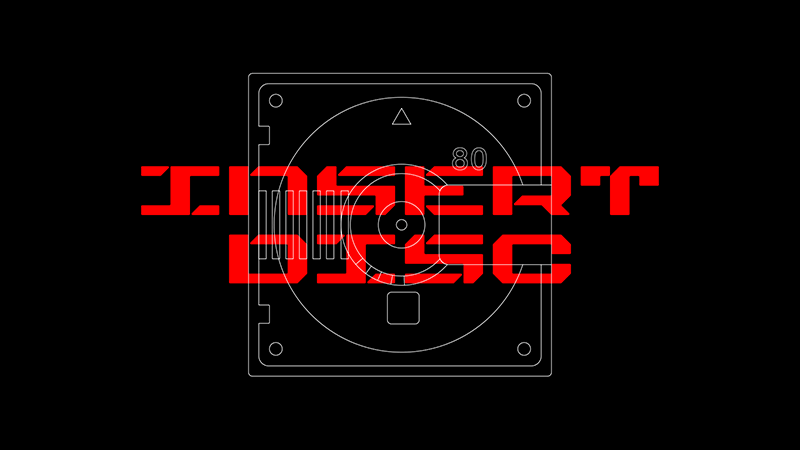
Monowire
Inspired by cyberpunk aesthetics and designed on an 8×5 grid. Currently only contains A-Z and 0-9, but I hope to make updates in the future. Free to use on both personal and commercial projects.